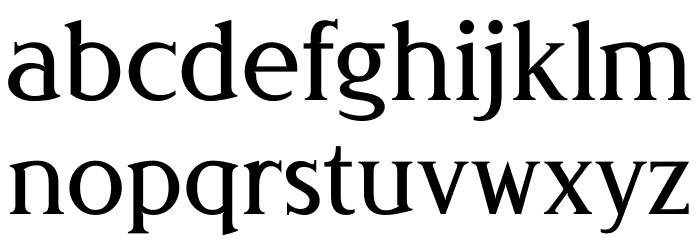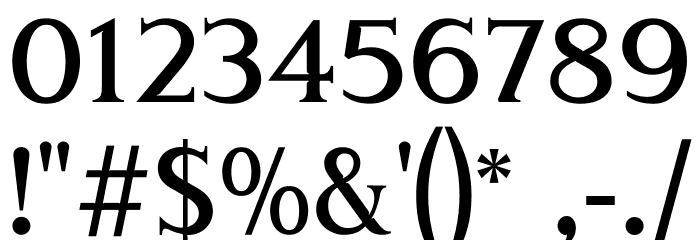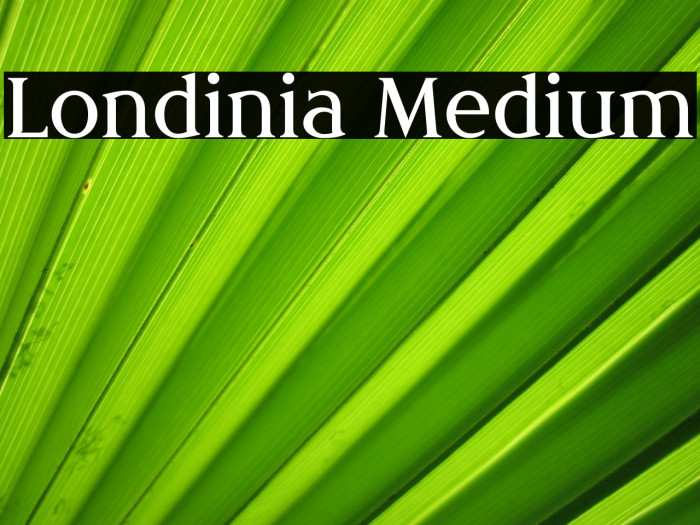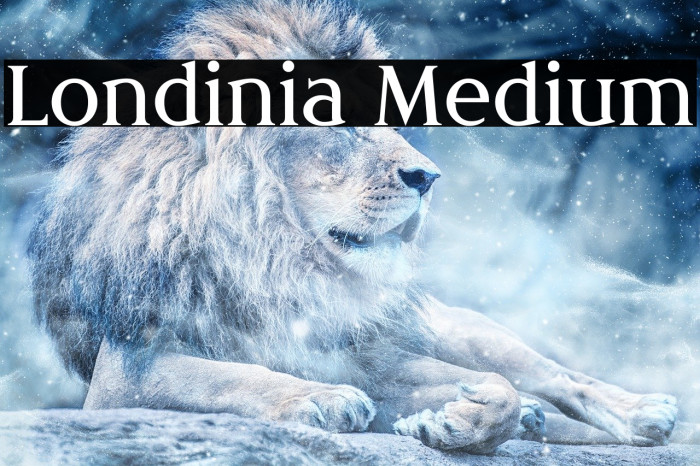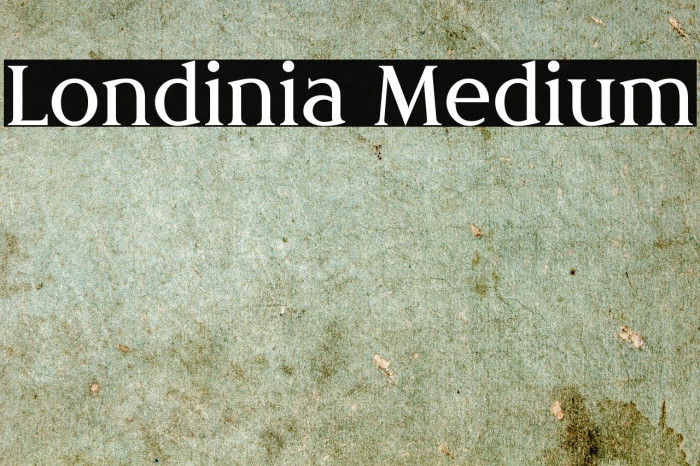
Londinia Medium Font
This font features a classic serif style with elegant and refined letterforms. The uppercase letters are bold and commanding, while the lowercase letters maintain a balanced and harmonious appearance. The numerals are clear and legible, making them suitable for a variety of uses. Special characters are well-designed, complementing the overall aesthetic of the font. The strokes are consistent, with a medium contrast that adds to the readability and sophistication of the typeface. This font is versatile, suitable for both traditional and modern applications.
A classic serif font with elegant, refined letterforms and medium contrast.
- Font: Londinia Medium
- Proposed Projects: Ideal for editorial design, book covers, formal invitations, and branding projects that require a touch of elegance.
- Category: Serif
- Overall Style: Classic